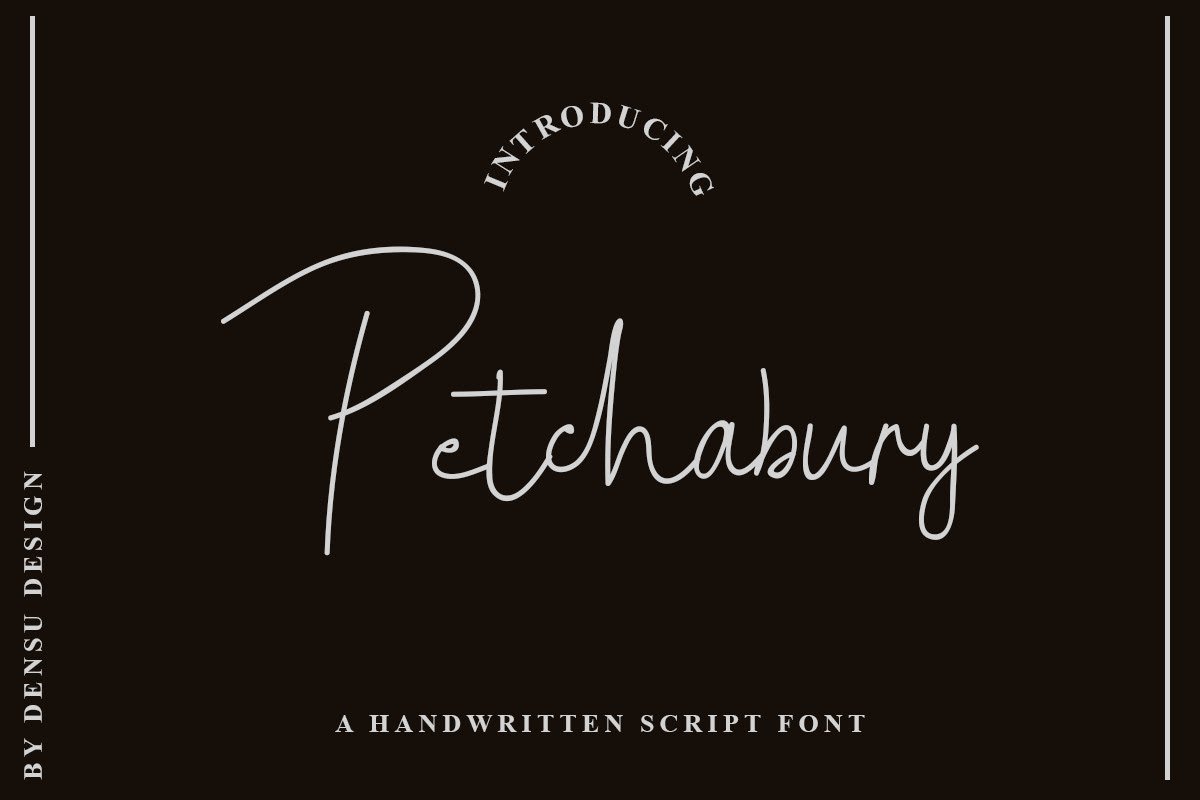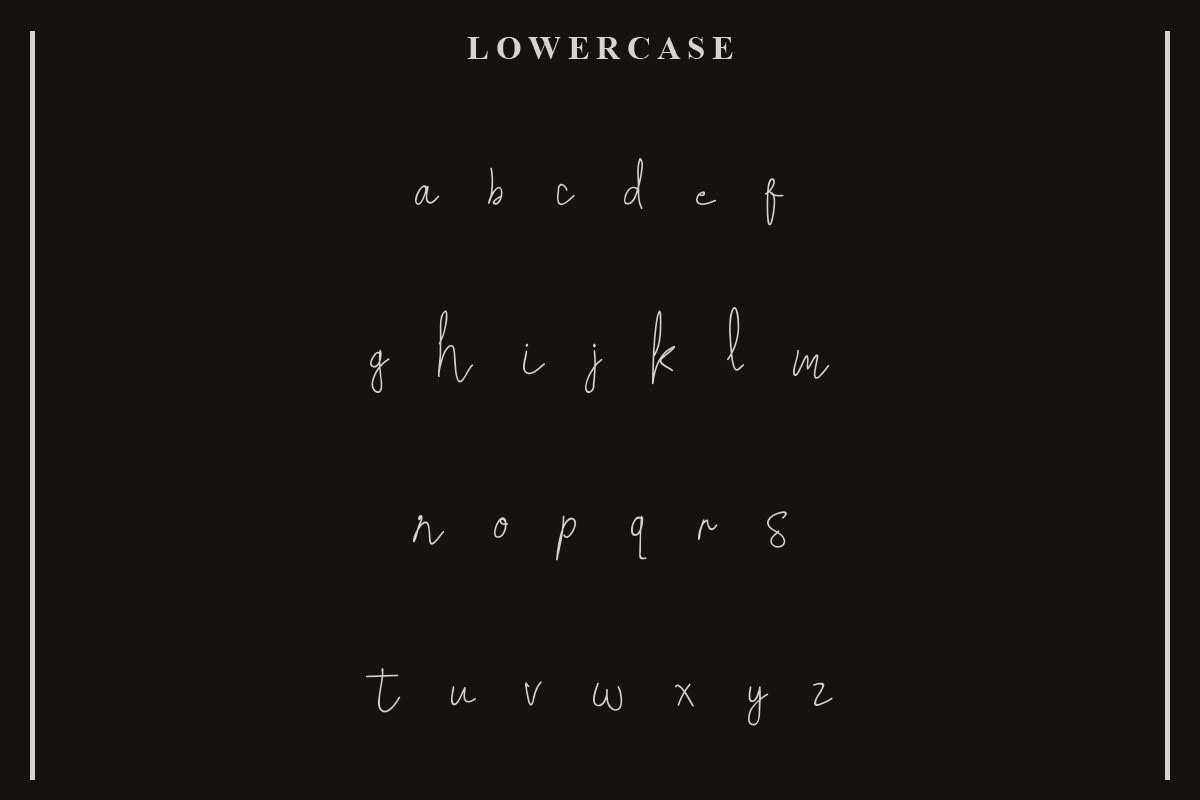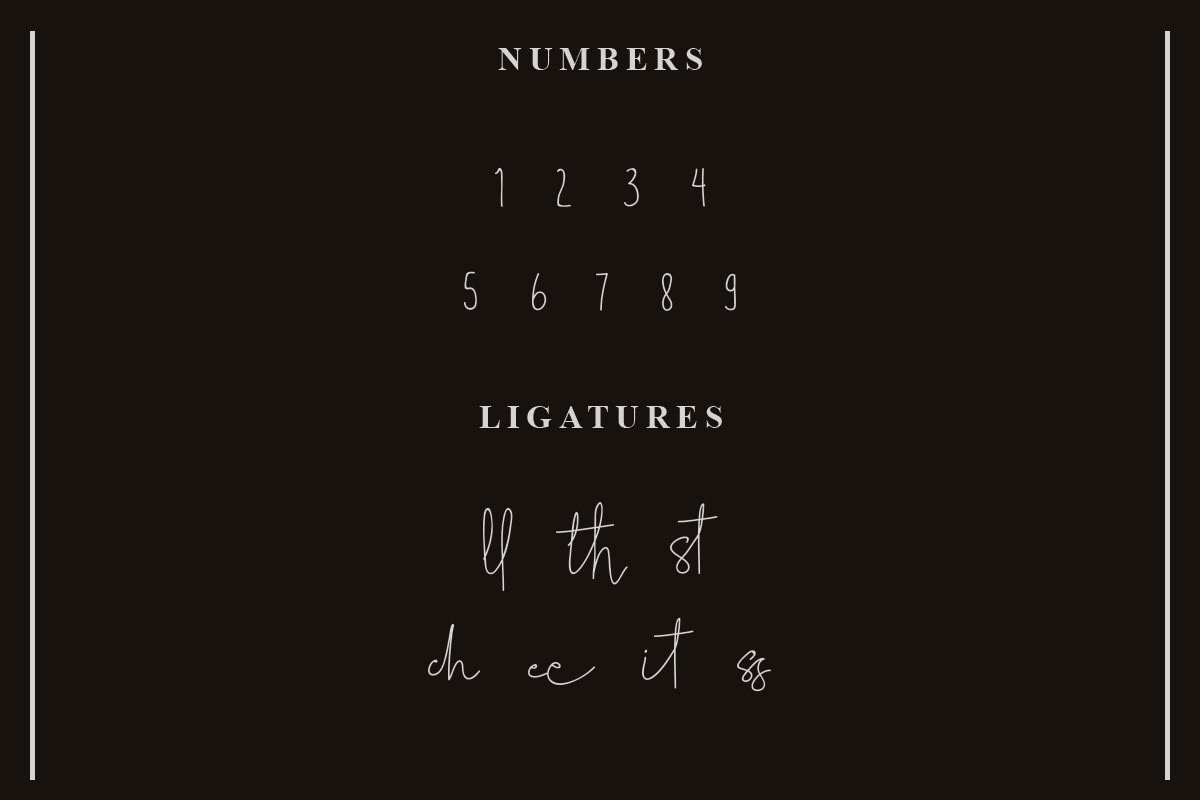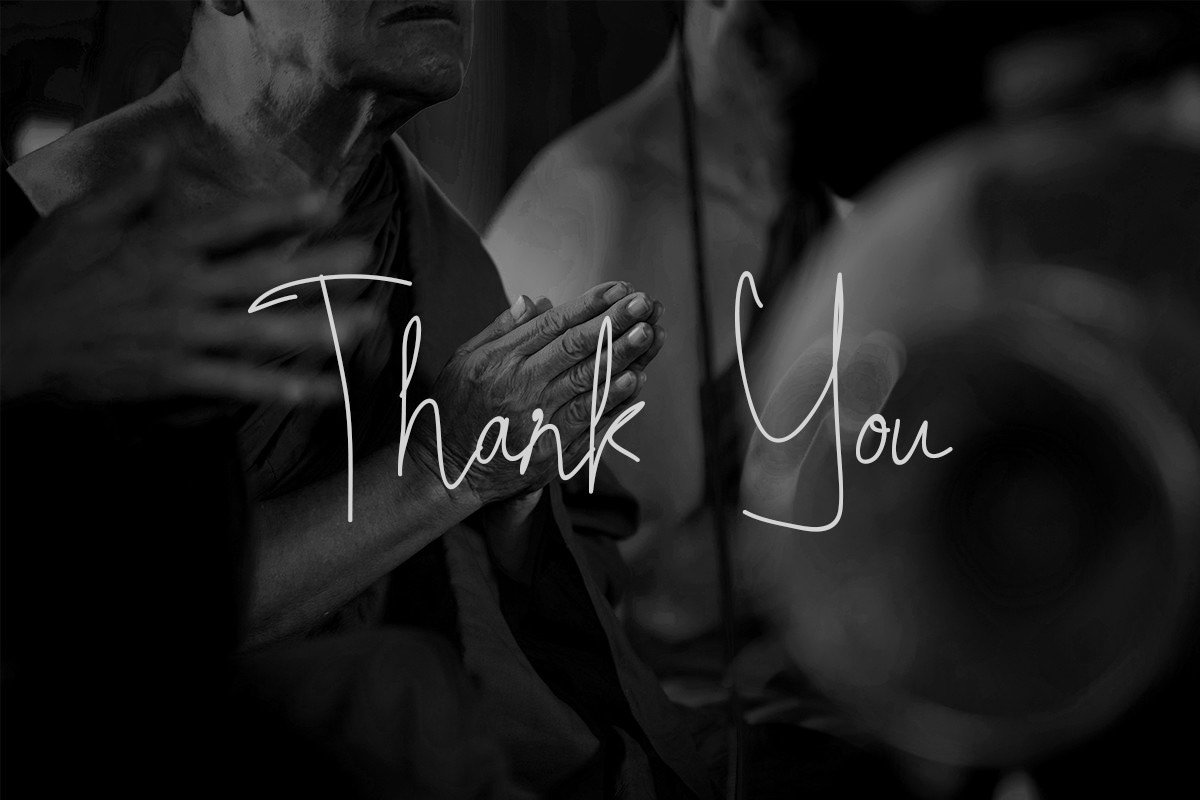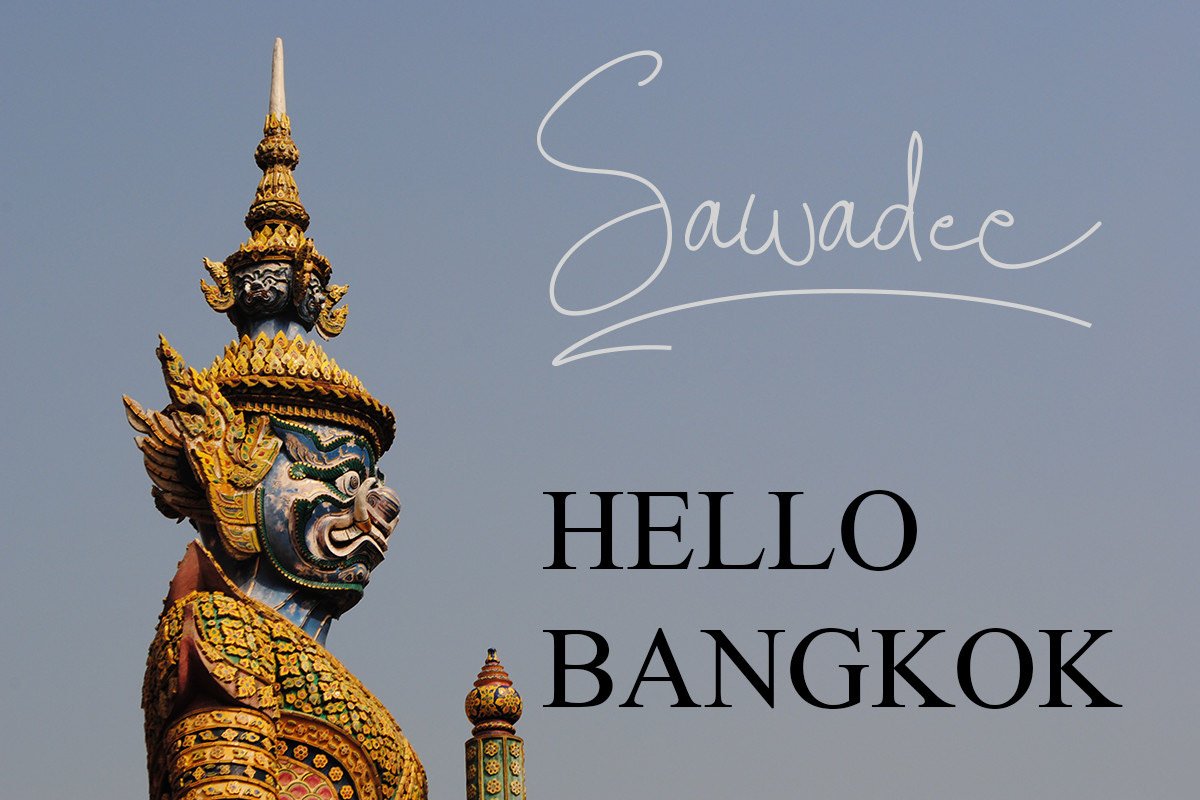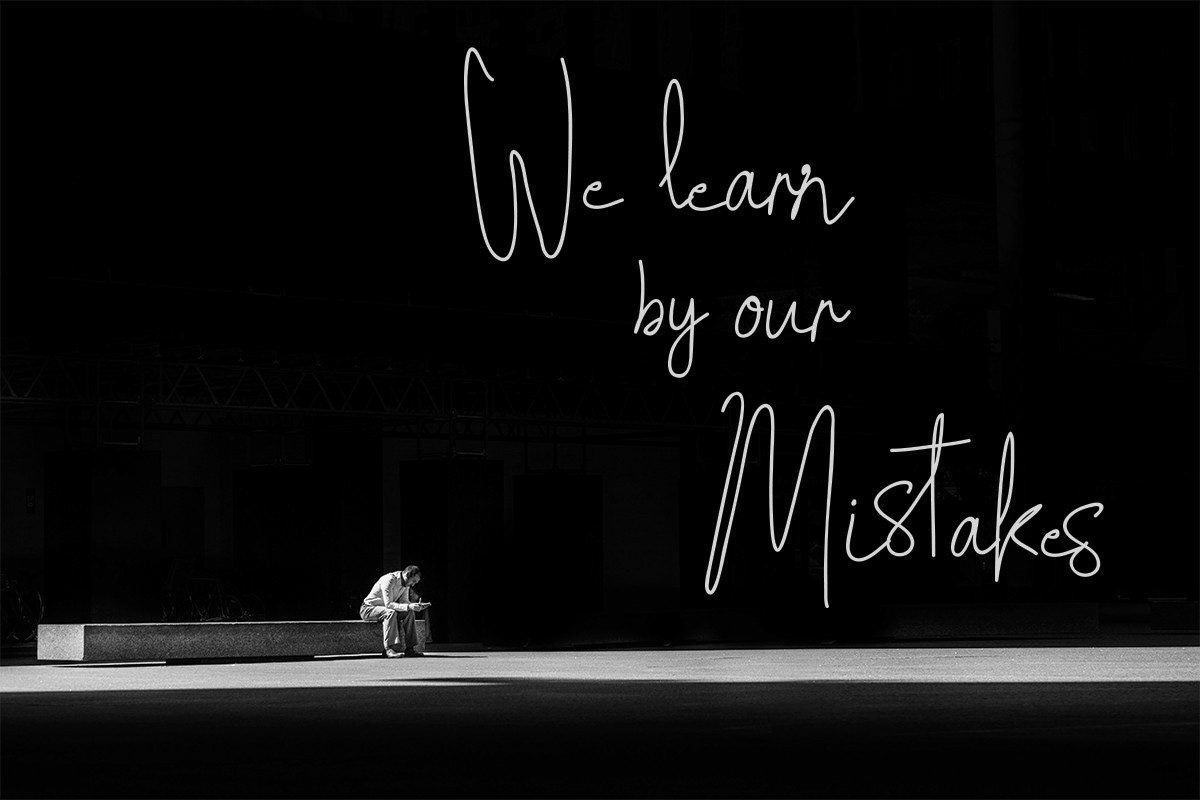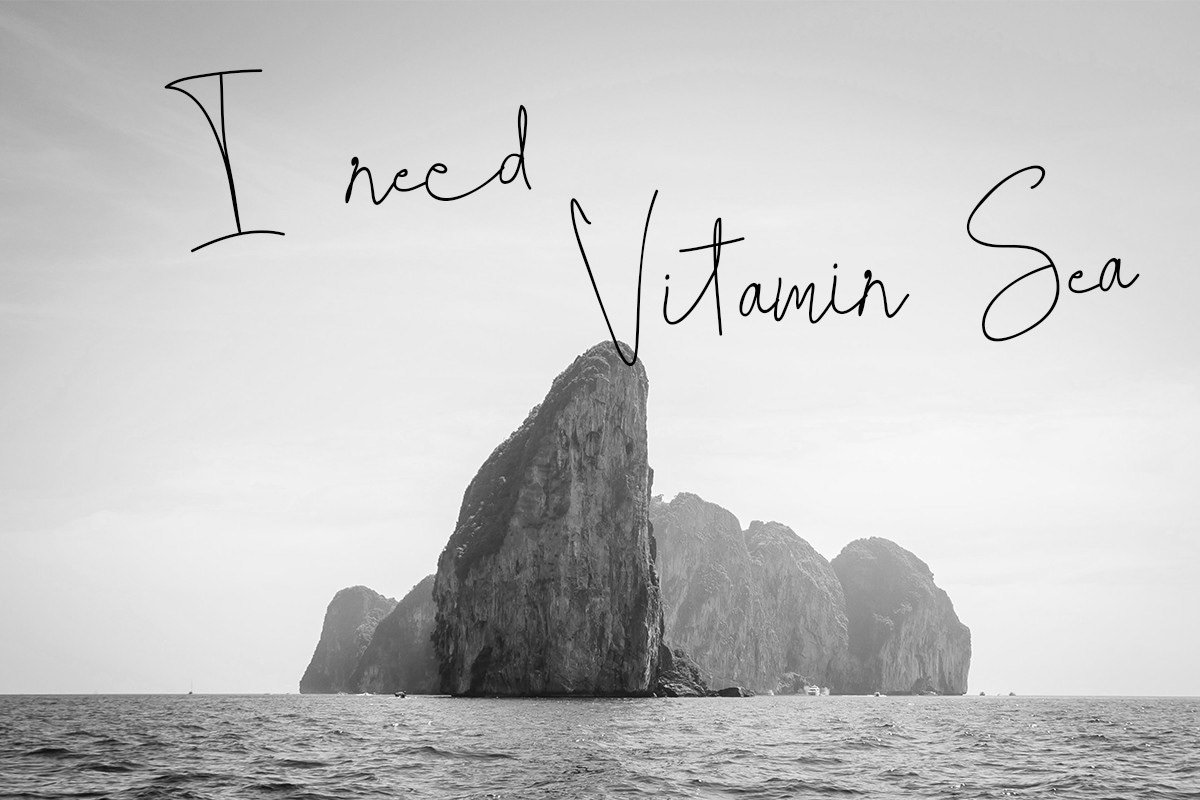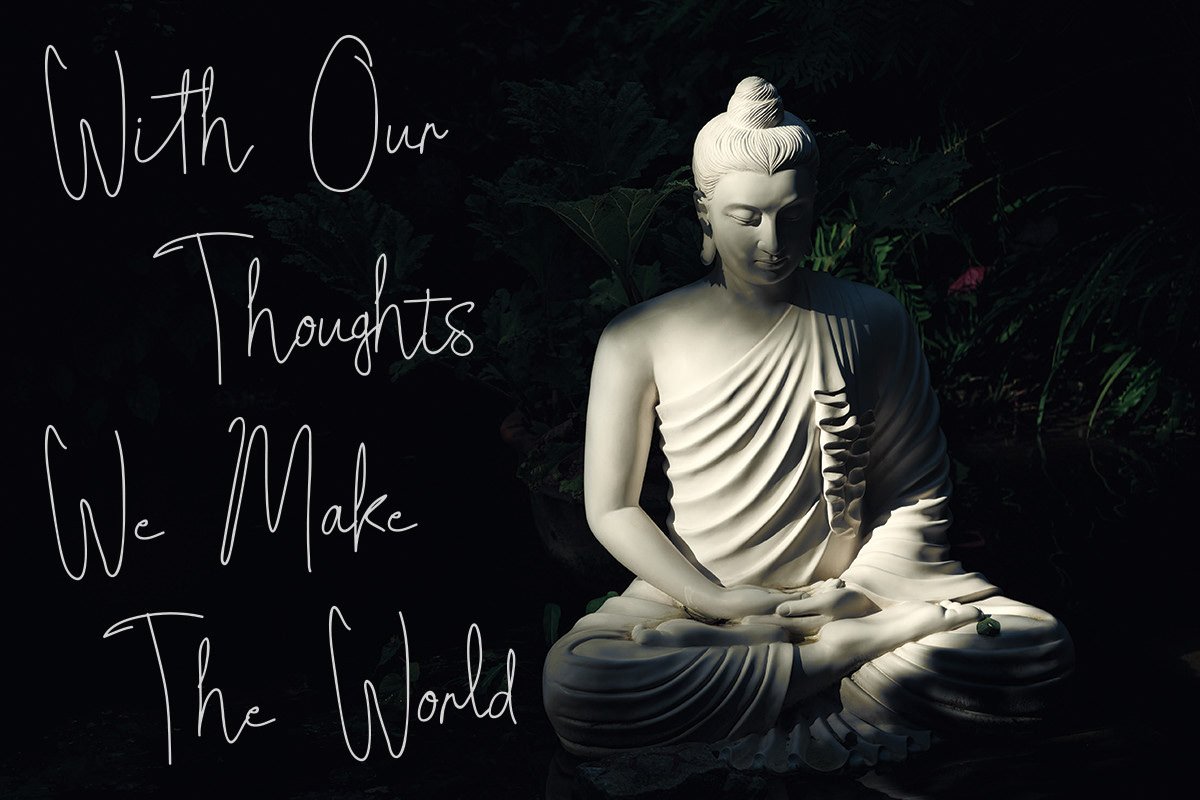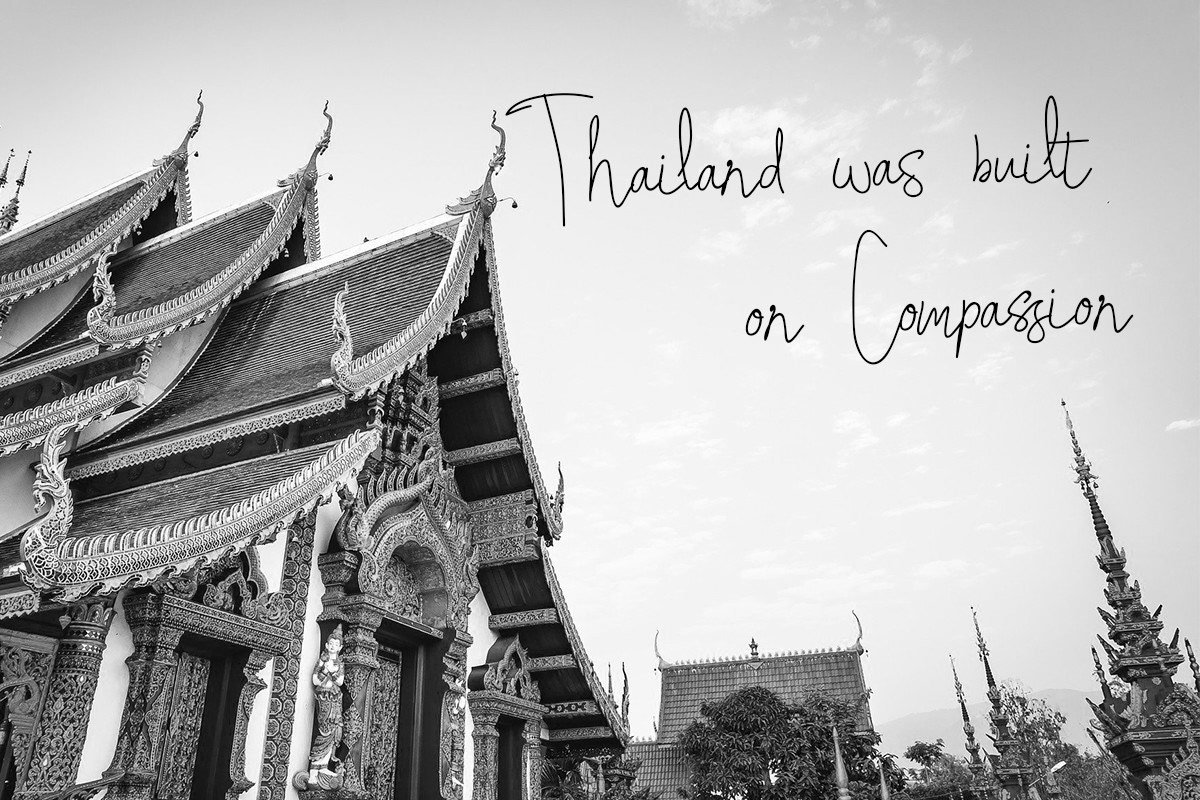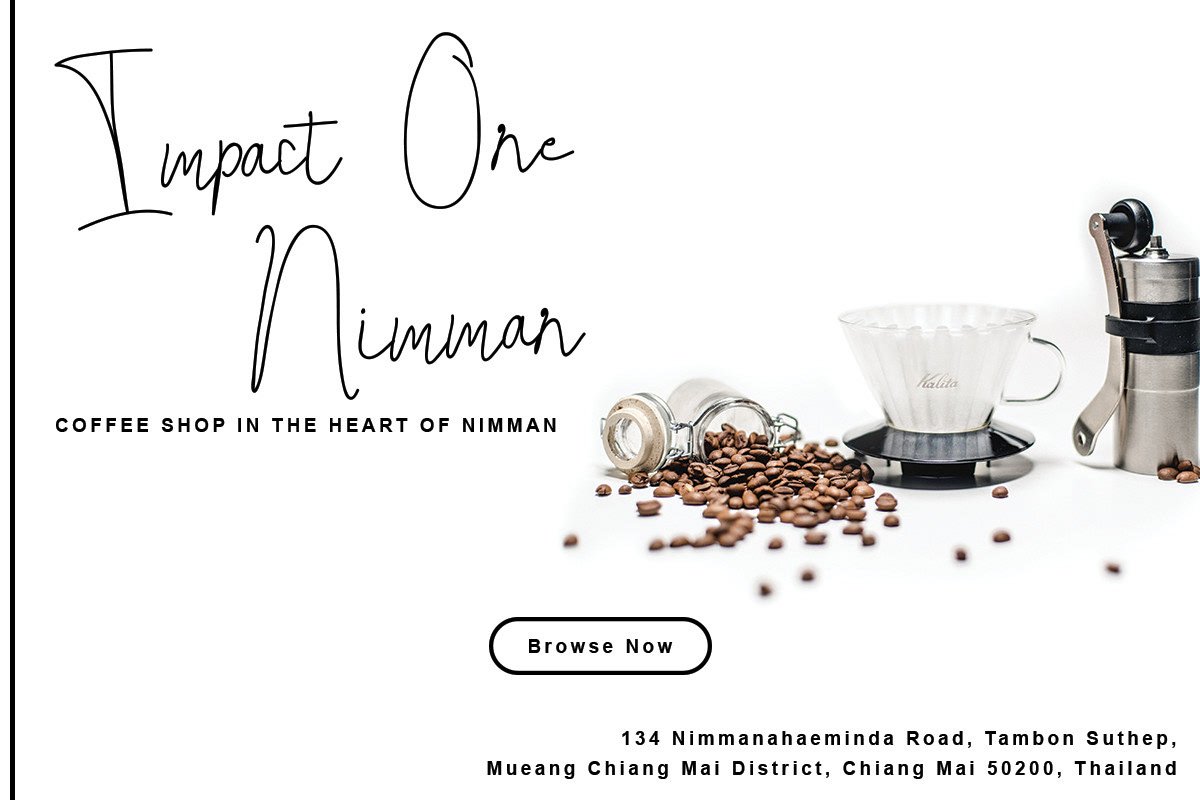
Free Petchabury Script Font is a script font that has a natural and elegant character. It suits for any type of your projects such as logos, wedding designs, social media templates, photography, packagings, and more. This free font presents with 2 format files which are OTF and TTF that you can install on your devices. However, This free font is ready for a personal use license. But, you still have another to use it on your commercial project by purchasing the premium version.